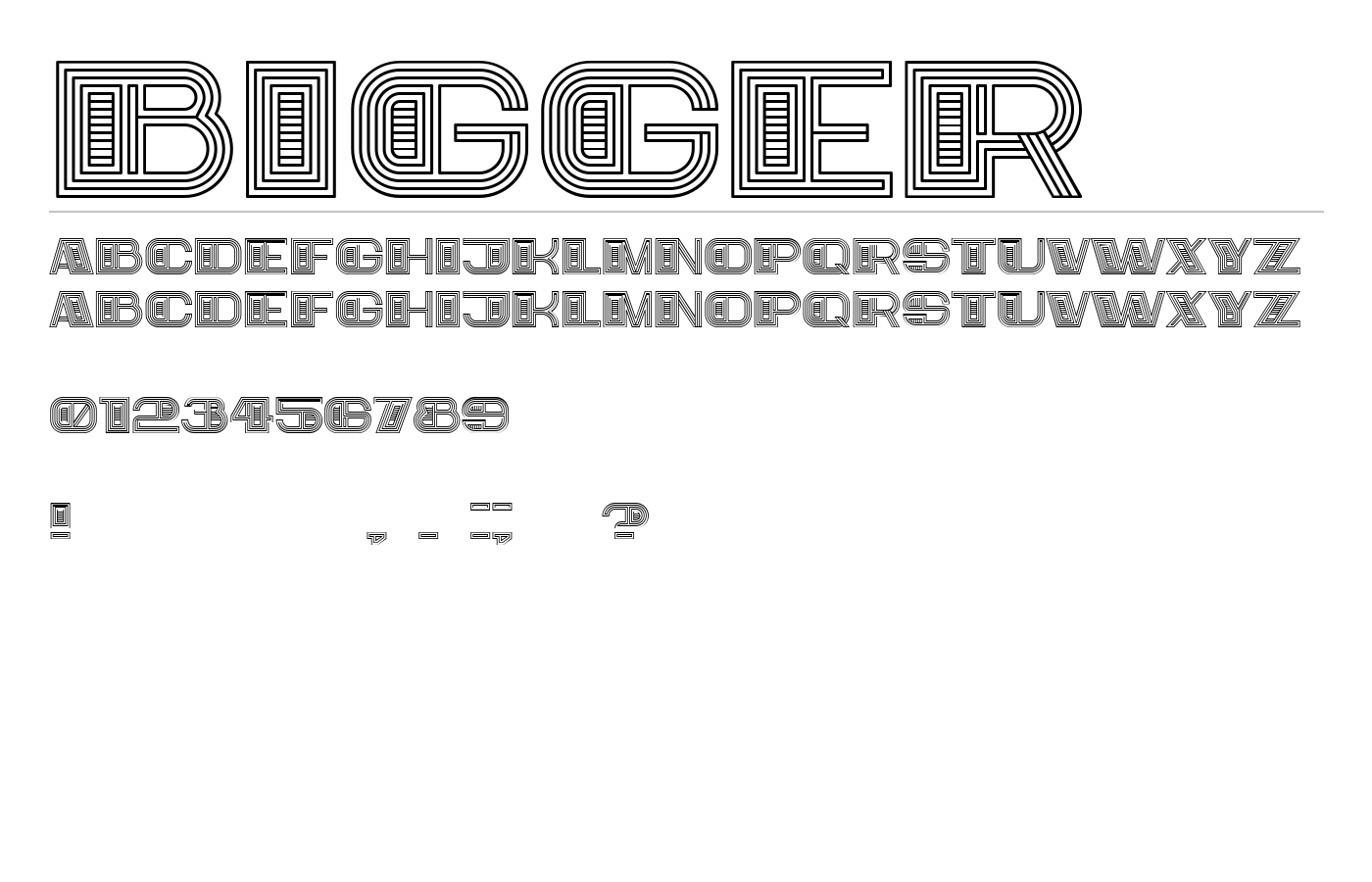
Bigger Font is a bold, geometric sans serif typeface characterized by multi-line outlines that create a striking layered effect. Its uppercase-only design with a high x-height and clean, structured letterforms gives it a modern, playful vibe ideal for eye-catching headlines, logos, and poster designs where strong visual impact is needed. This font works best in creative branding and display contexts that benefit from its distinctive, energetic style.
Bigger Font
About Bigger Font